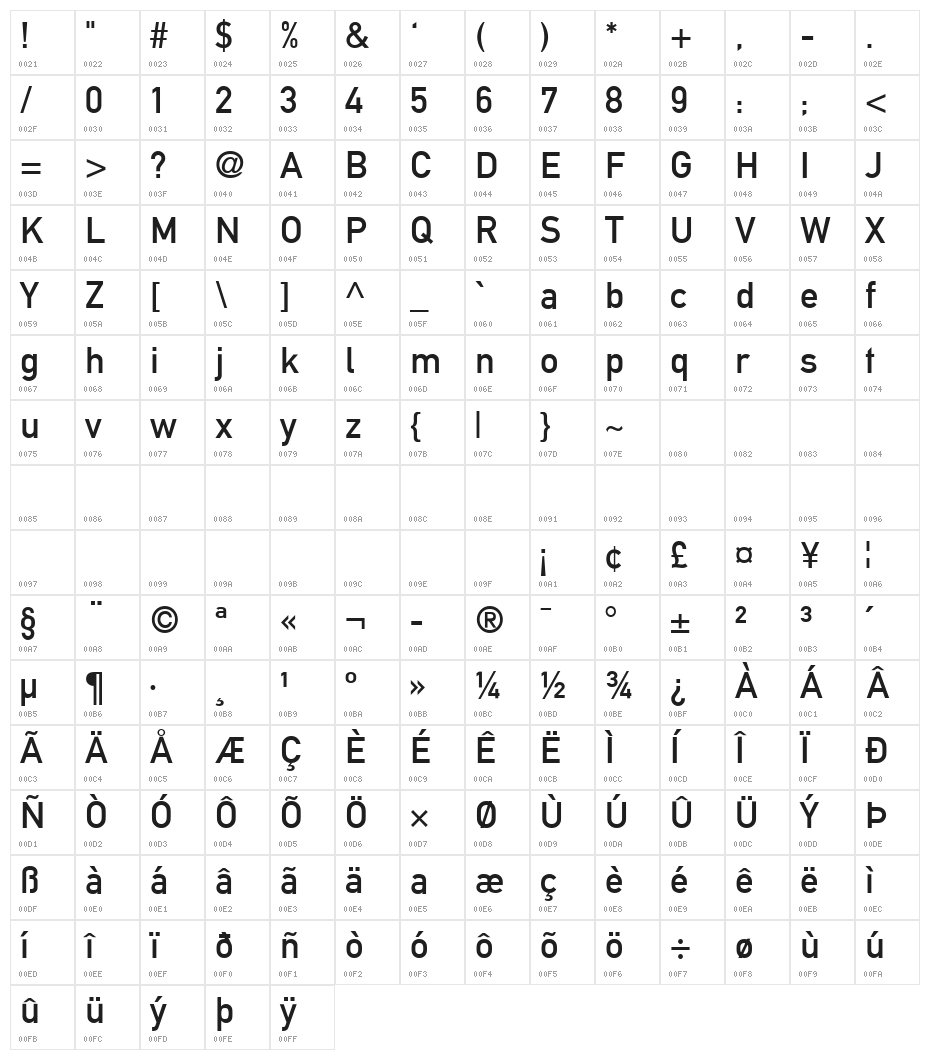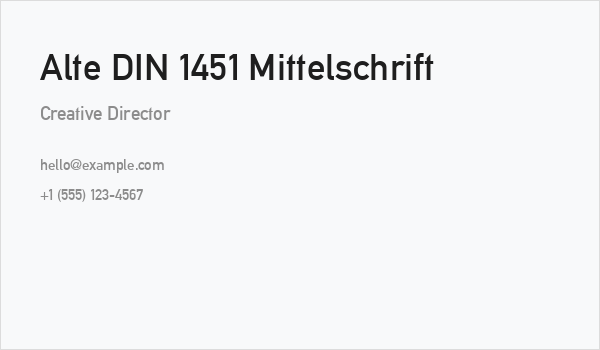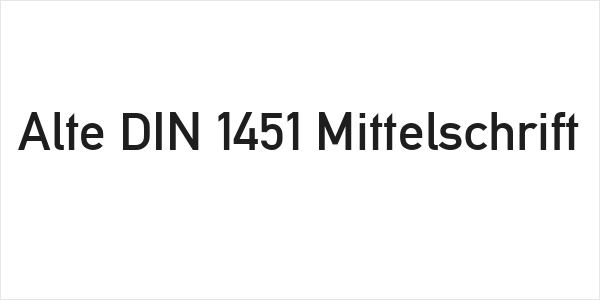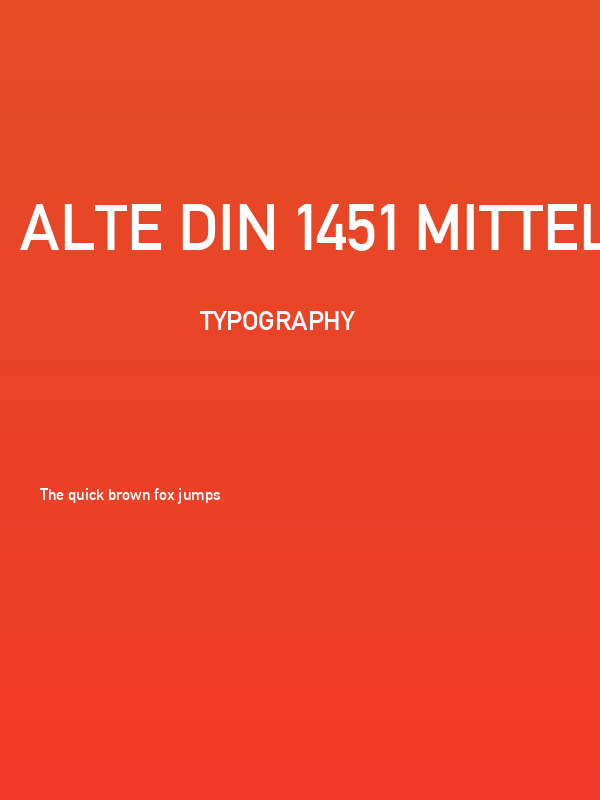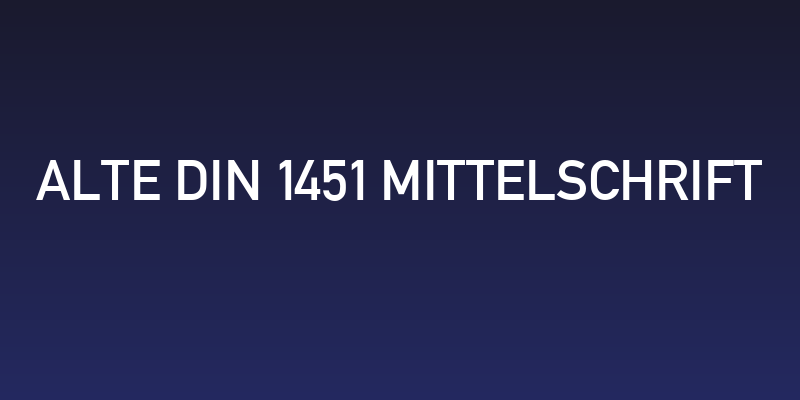
Alte DIN 1451 Mittelschrift Font
Alte DIN 1451 Mittelschrift Description
This font features a clean, geometric design with uniform stroke widths, making it highly legible and functional. The characters are well-proportioned, with a modern and industrial aesthetic. The uppercase letters are bold and assertive, while the lowercase letters maintain a consistent style that complements the overall design. The numerals are clear and easily distinguishable, and the special characters are straightforward and practical. This font is versatile, suitable for a wide range of applications where clarity and precision are paramount.
| Use Case | Signage, Technical documents, Branding |
| Proposed Projects | Ideal for technical documents, signage, branding, and user interfaces. |